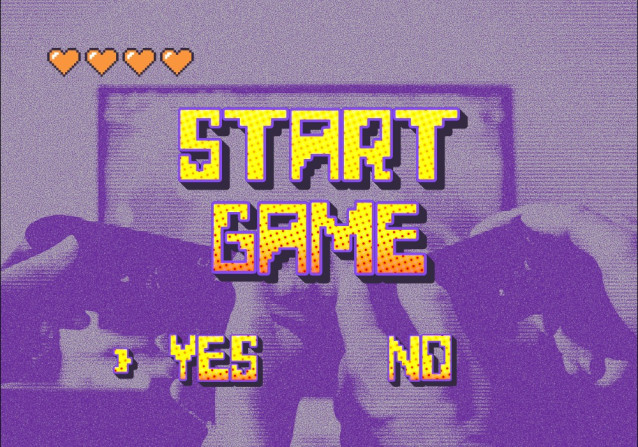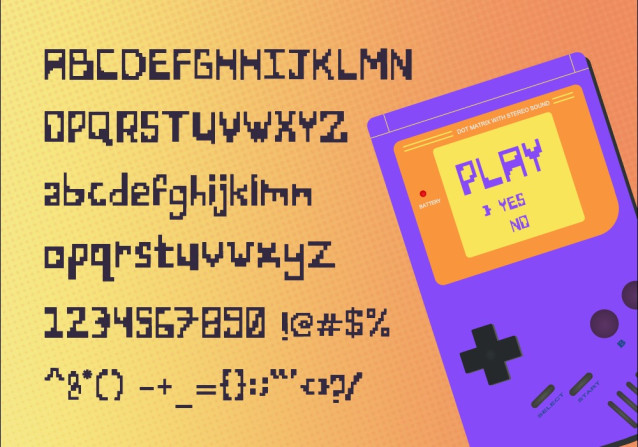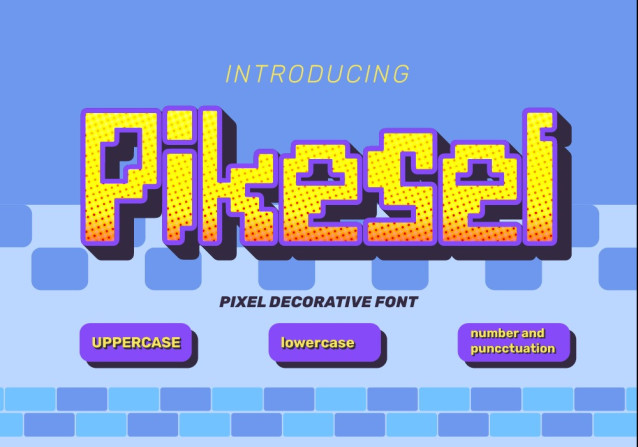
Piksel Font
Piksel Font – The Pixel Decorative Font. Take a step back in time with Piksel, a font that captures the heart and soul of classic 8-bit gaming. Every character is crafted with pixel precision, designed to evoke nostalgia for the retro world of old-school video games.
Piksel is not just a font; it’s a throwback to a simpler time, when pixels created entire universes of wonder. Perfect for game posters, user interfaces, and any design that needs to scream fun, vintage, and playful. With its striking uppercase, lowercase, and complete set of numbers and punctuation, Piksel is ready to bring your creative projects to life.